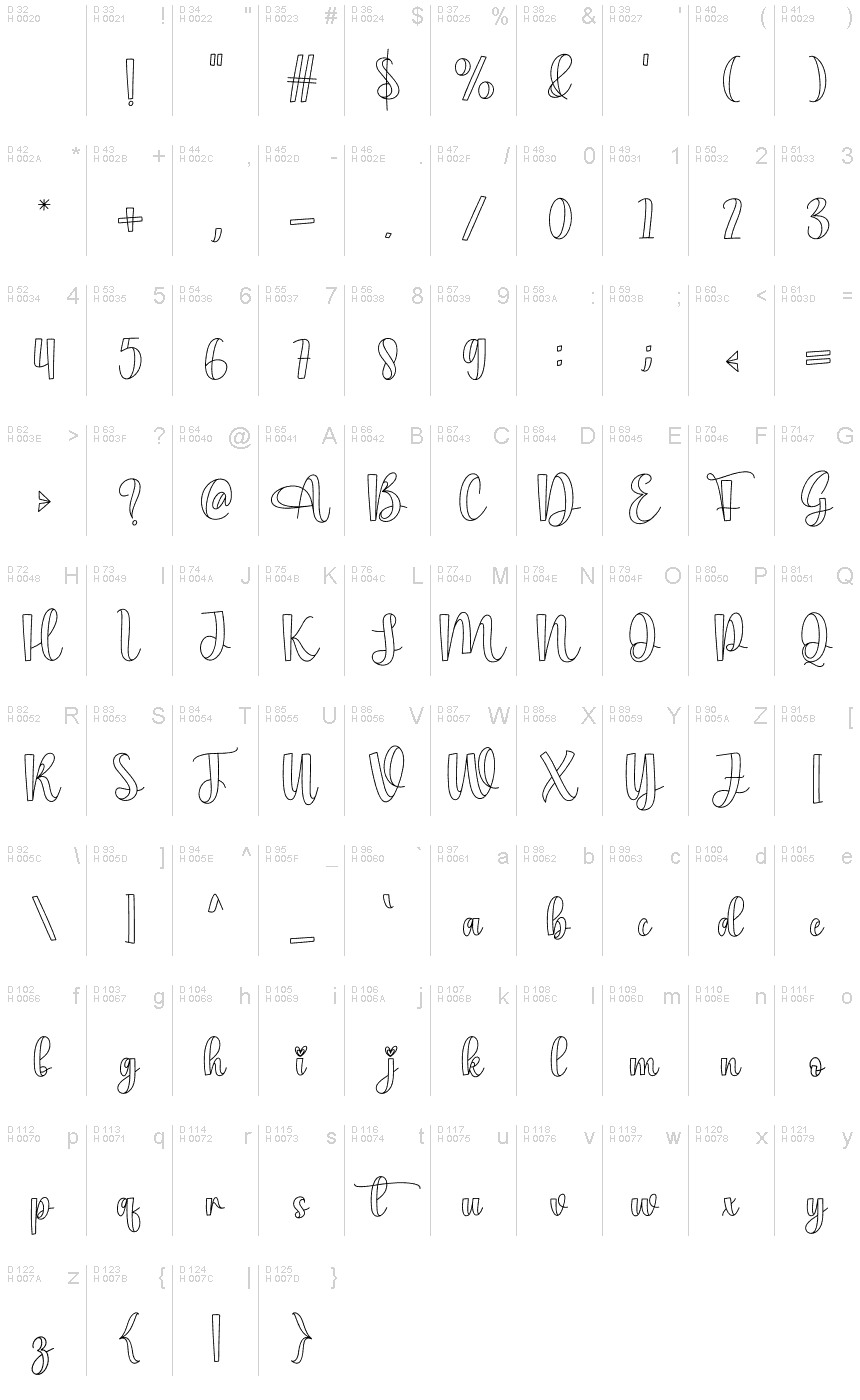
Hangout
Hangout, crafted by the visionary Scratchones, is an outlined script font that dances between casual charm and artistic elegance. Its semi-light weight offers a breezy, contemporary feel perfect for innovative branding, expressive web design, and eye-catching social media graphics. The whimsical contours of Hangout bring a touch of personality to any project, making it an ideal choice for designers aiming to infuse their work with both readability and flair.
With its unique style, this font transforms text into a visual adventure that captures the essence of creative expression.
The latest style letters are perfect for wall displays, wedding invitations, social media post logos,
advertisements, product packaging, product designs, labels, photography, watermarks, invitations, stationery, and any project that requires taste handwriting.
With its unique style, this font transforms text into a visual adventure that captures the essence of creative expression.
The latest style letters are perfect for wall displays, wedding invitations, social media post logos,
advertisements, product packaging, product designs, labels, photography, watermarks, invitations, stationery, and any project that requires taste handwriting.